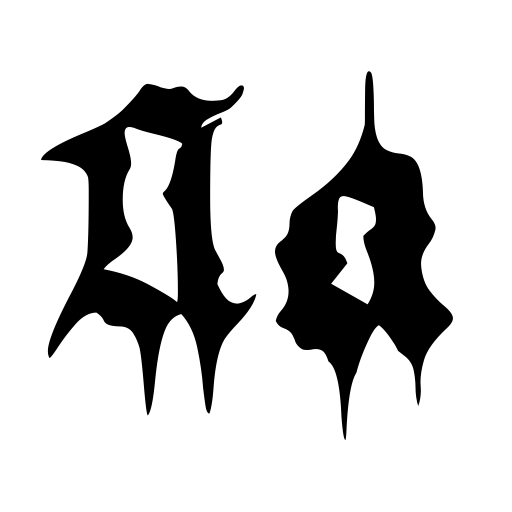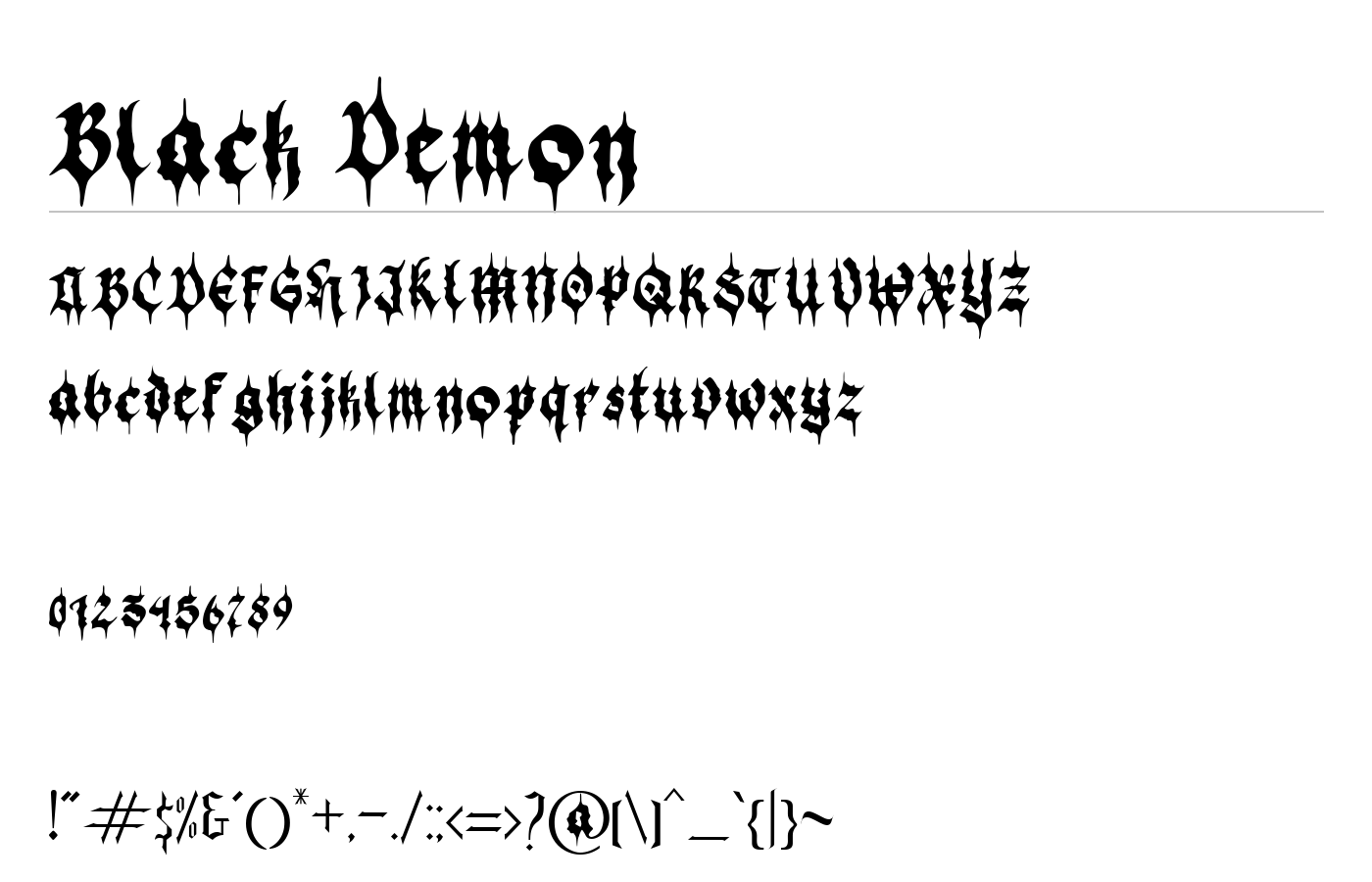
Black Demon is a bold, gothic-inspired display font with sharp, pointed edges that evoke a dark, eerie atmosphere. Its heavy weight and dramatic strokes give it a strong, intense personality, making it ideal for horror-themed designs, edgy branding, and striking headlines. This font works best in contexts where a powerful, mysterious mood needs to be conveyed, such as posters, logos, and creative artwork.
Black Demon Font
About Black Demon Font